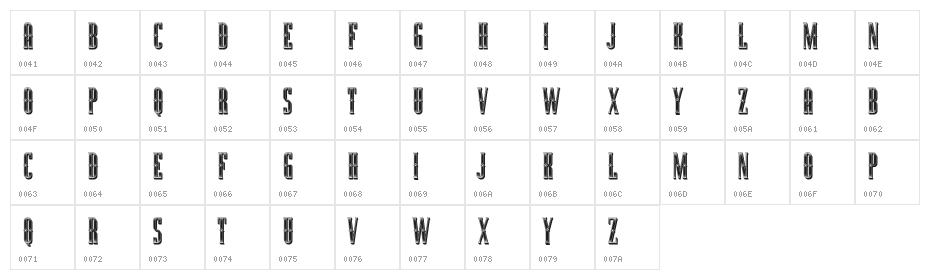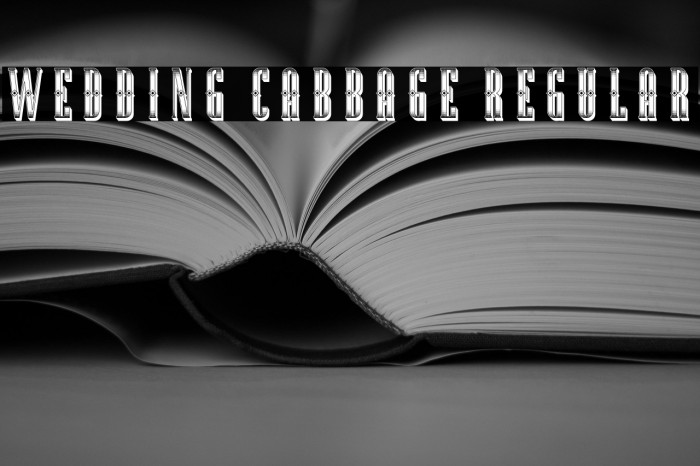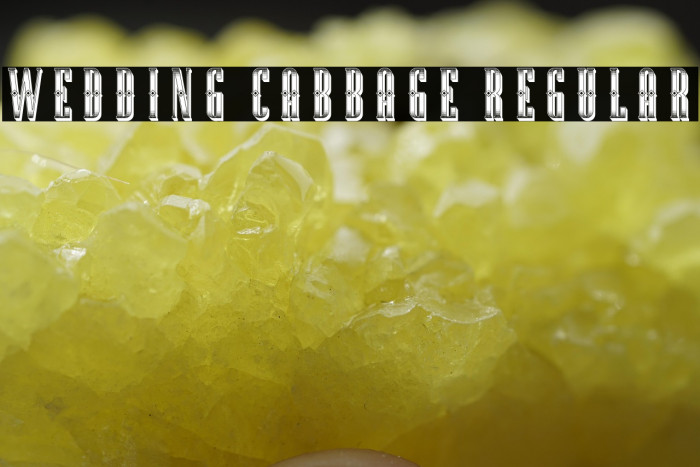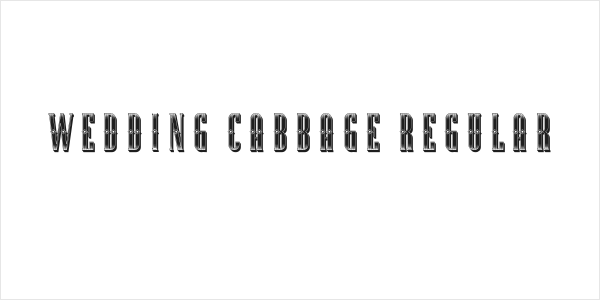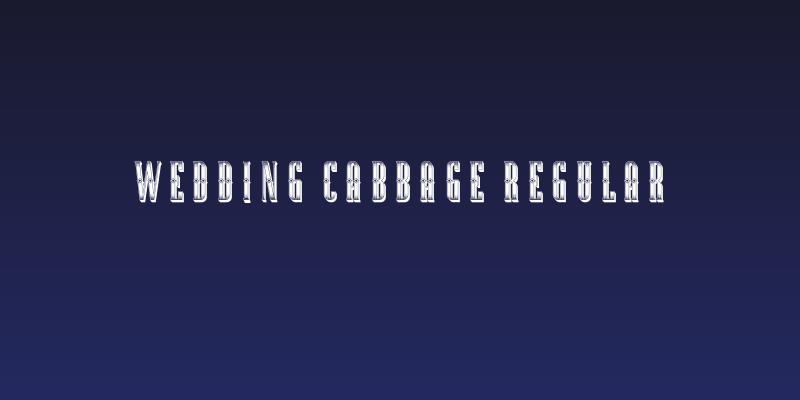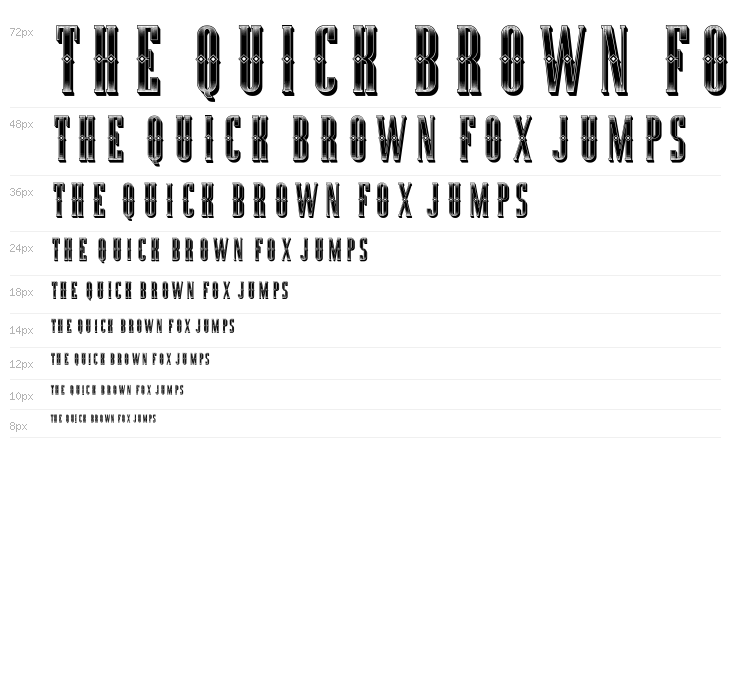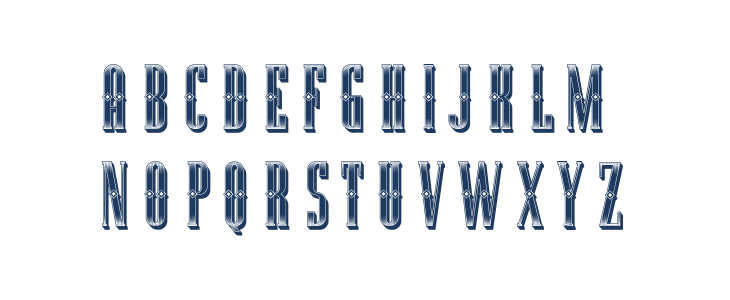
Wedding Cabbage Regular Font
Wedding Cabbage Regular Description
This font features a bold and decorative style with intricate detailing. Each character is adorned with vertical lines and diamond-shaped embellishments, creating a sense of elegance and sophistication. The letters are tall and narrow, giving them a distinctive and eye-catching appearance. The font's unique design elements make it suitable for projects that require a touch of vintage charm and artistic flair. Its decorative nature is ideal for creating standout headlines or logos that demand attention.
| Overall Style | Vintage, Decorative |
| Proposed Projects | Ideal for wedding invitations, vintage-themed posters, branding, and logo design. |